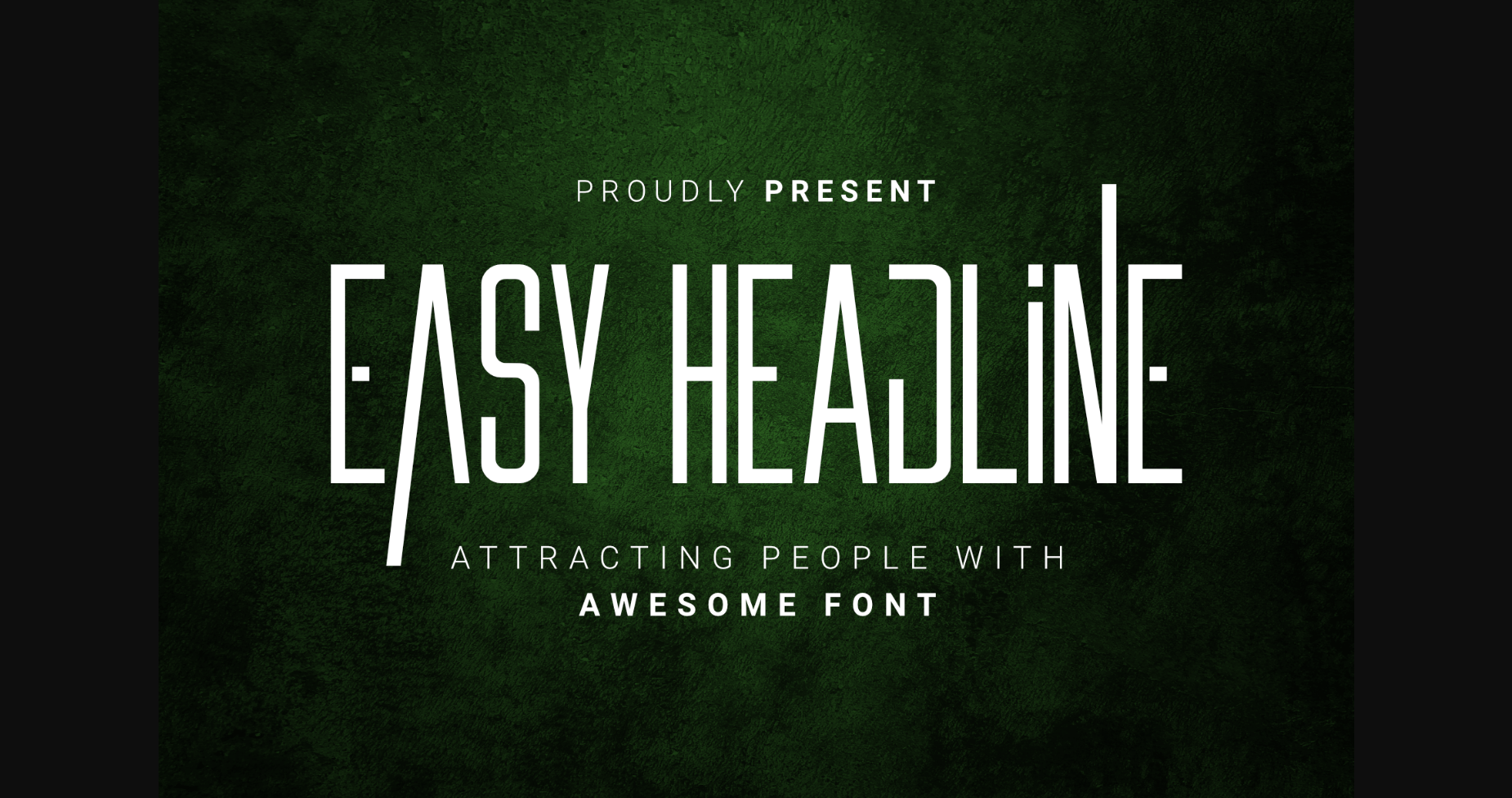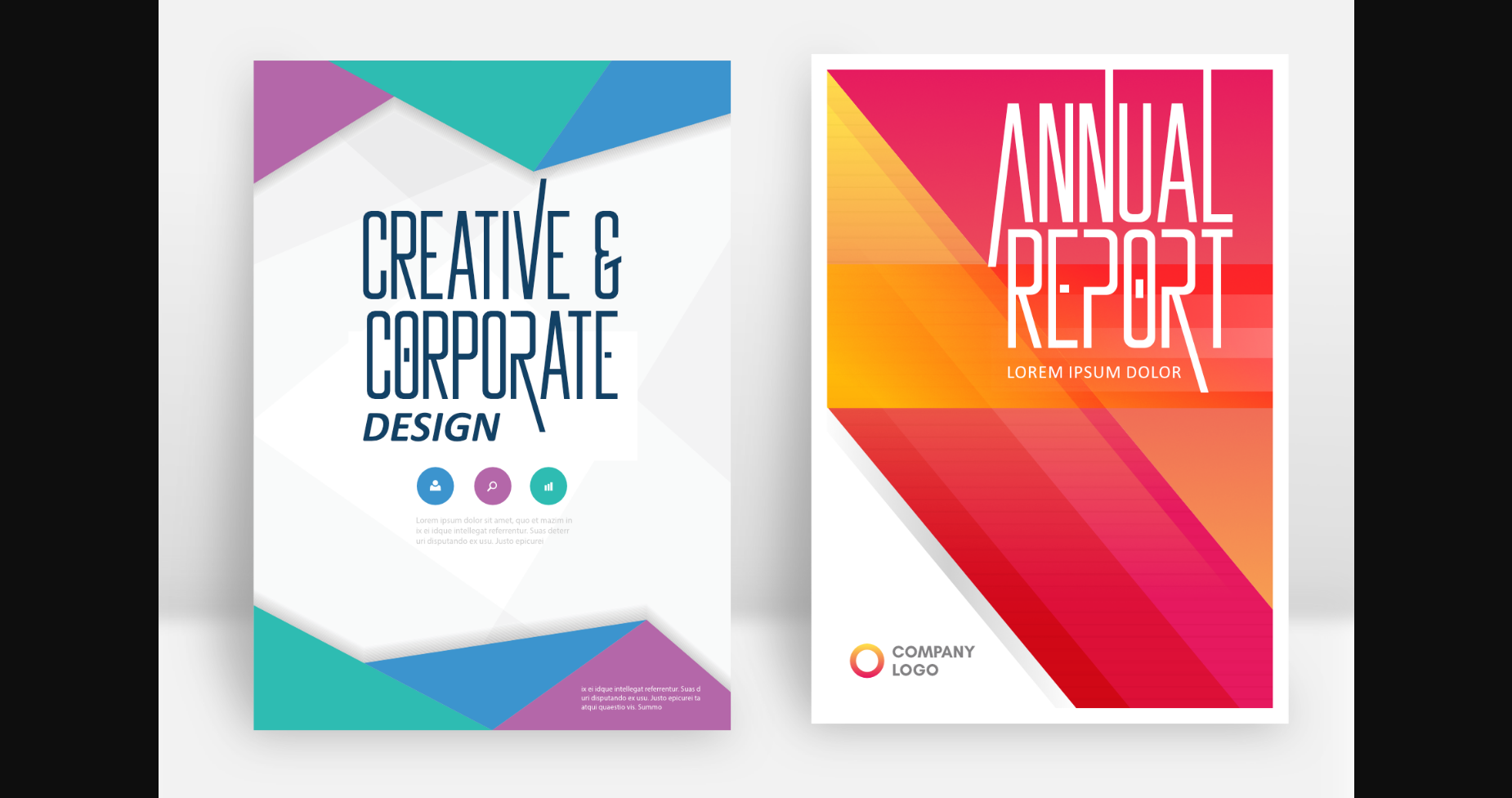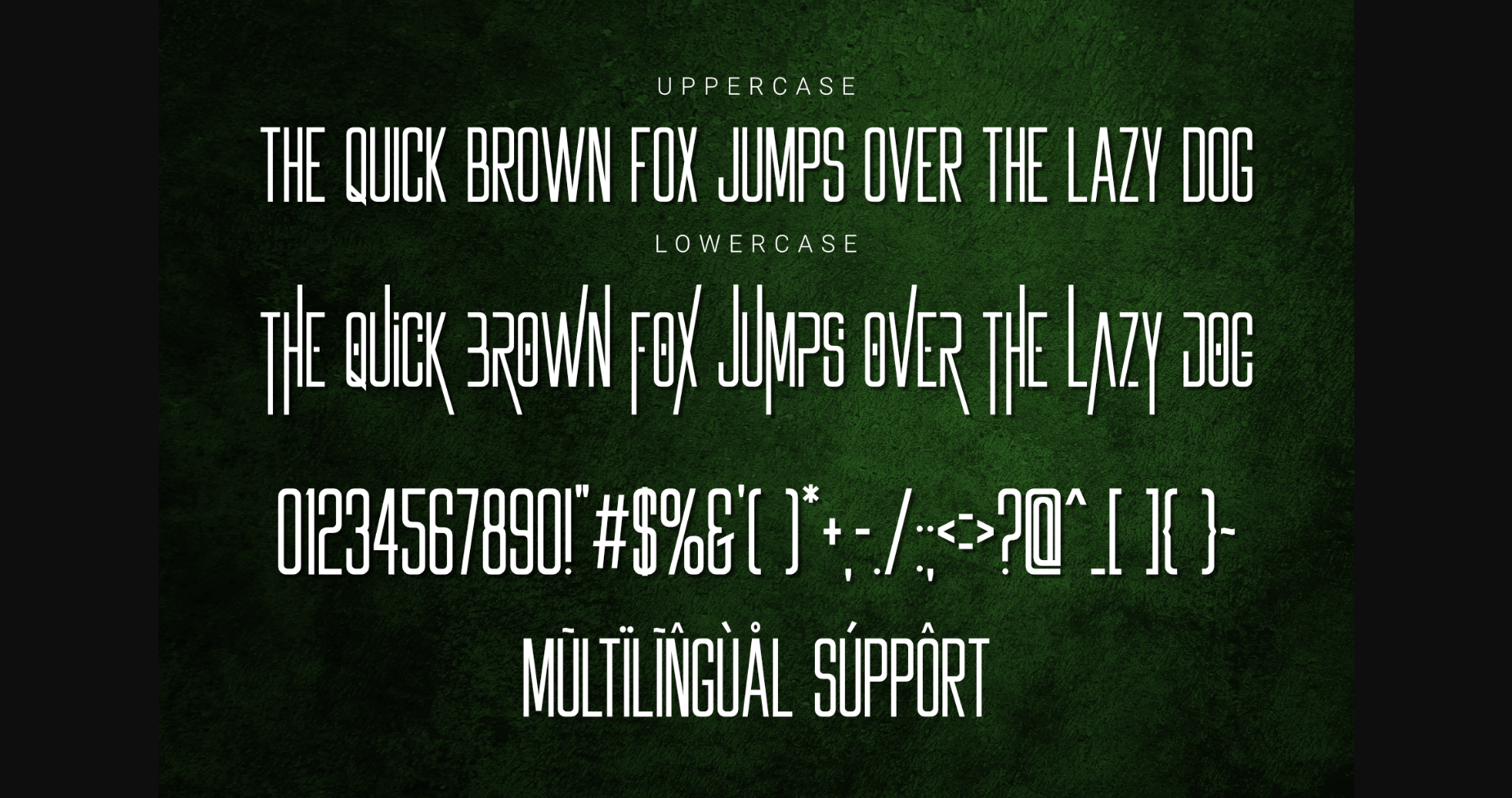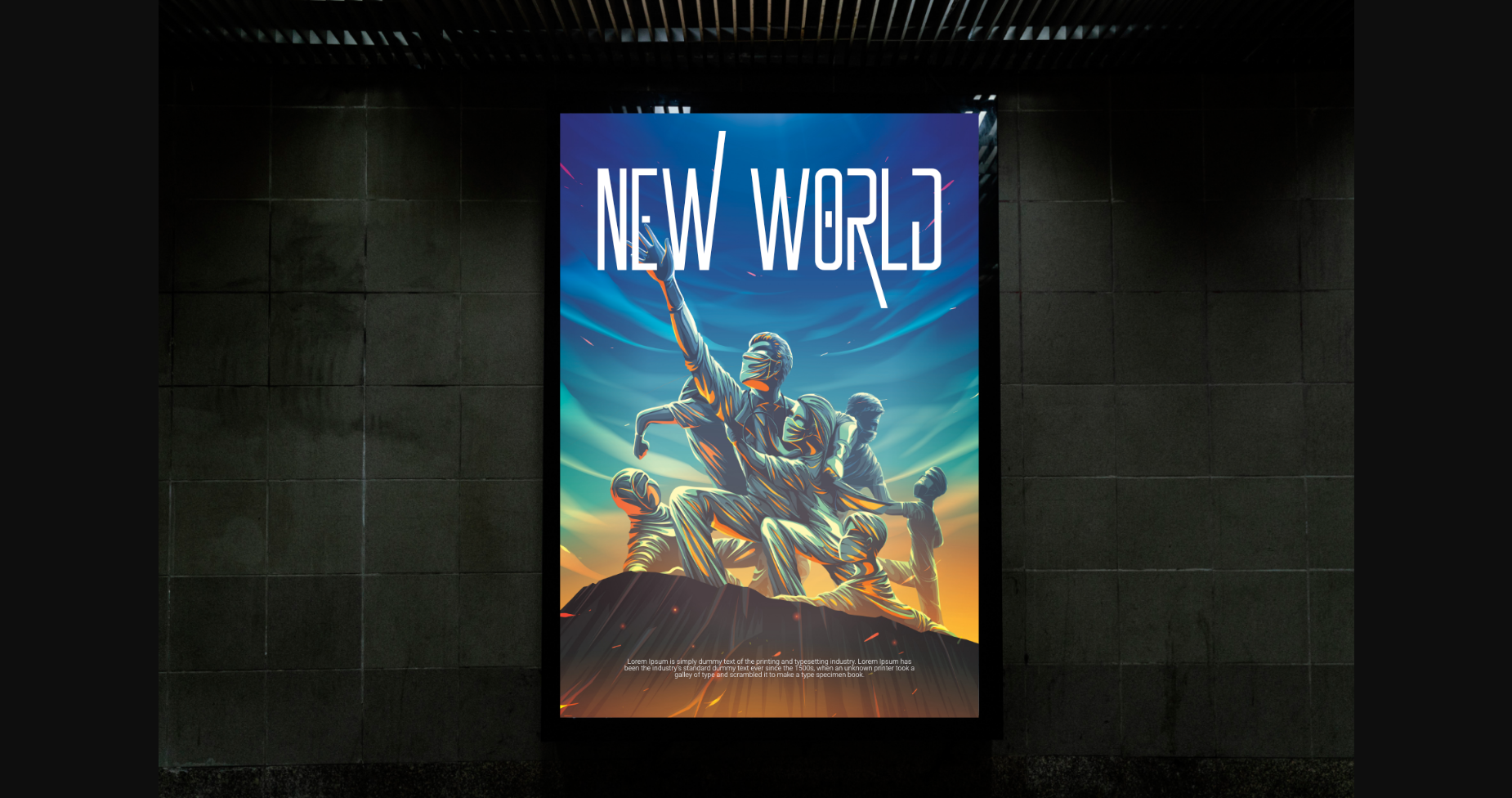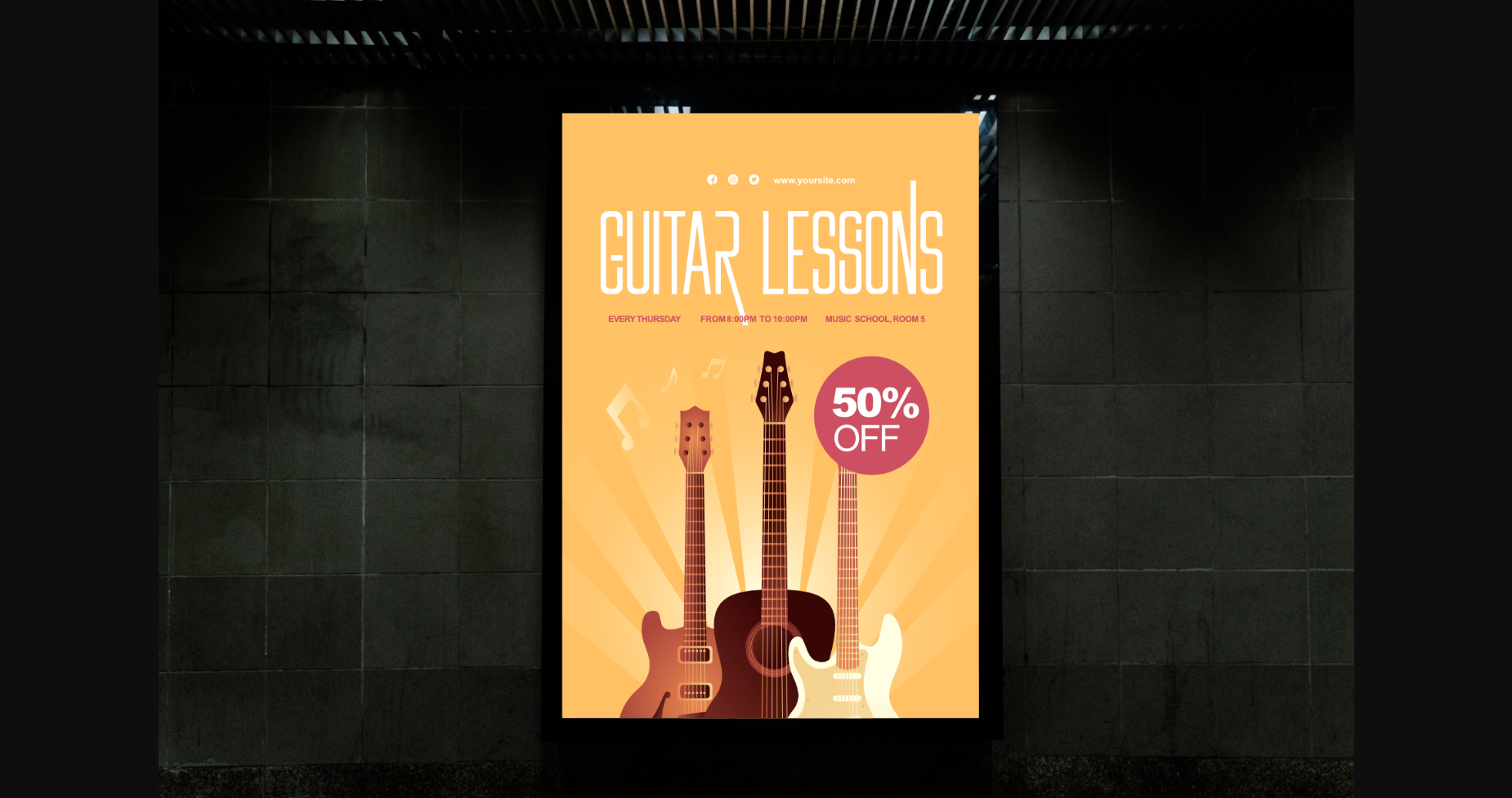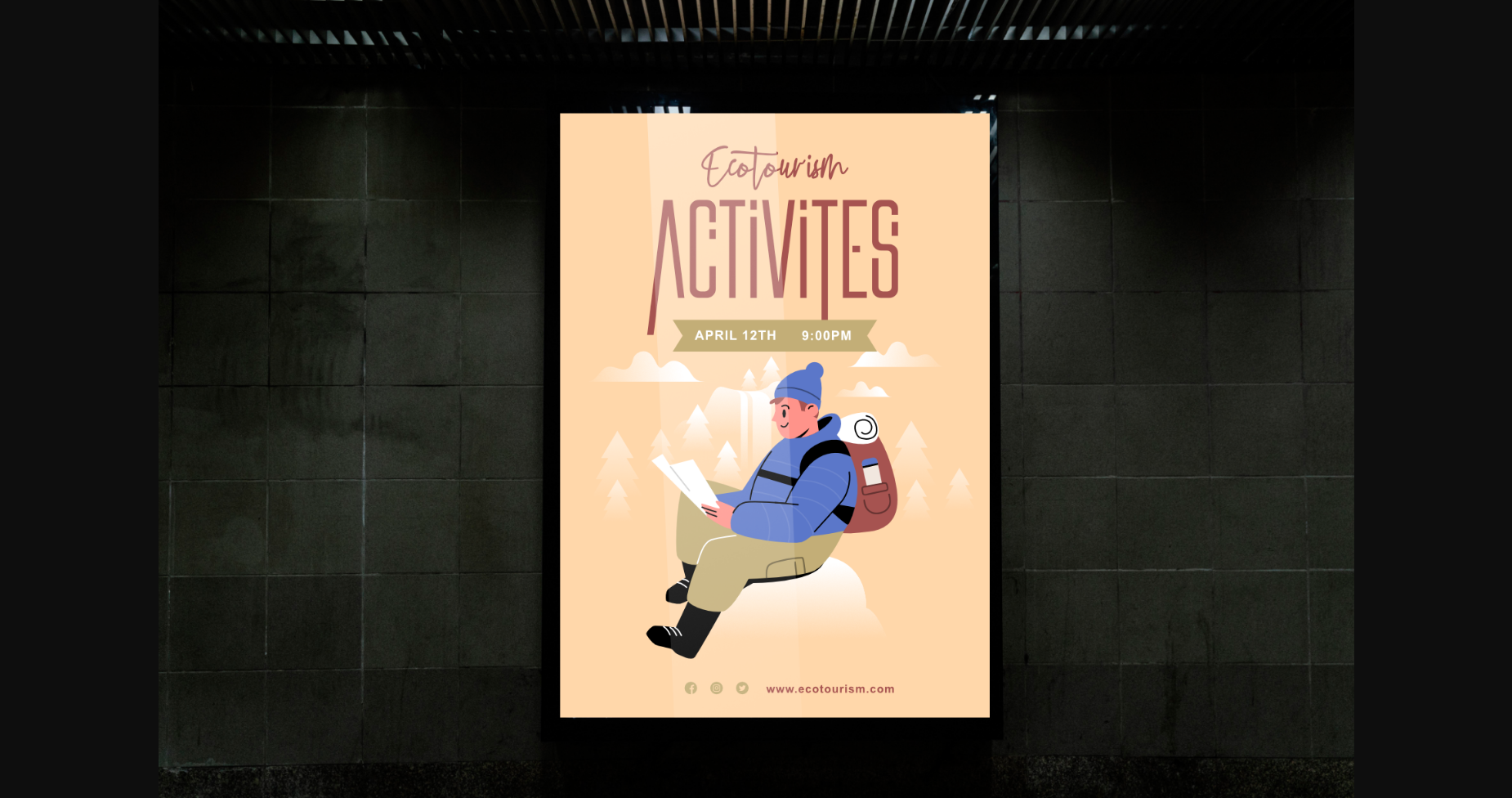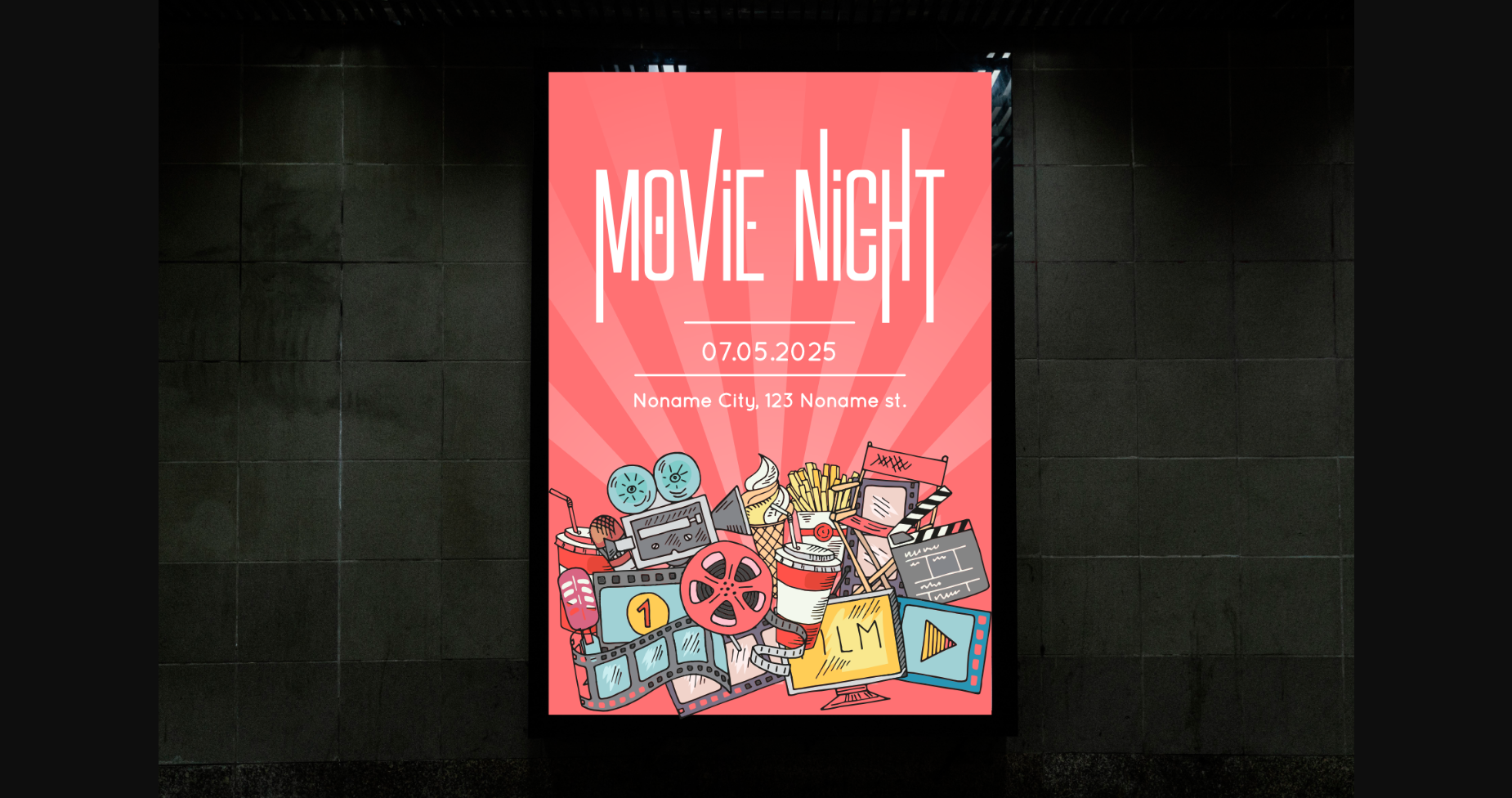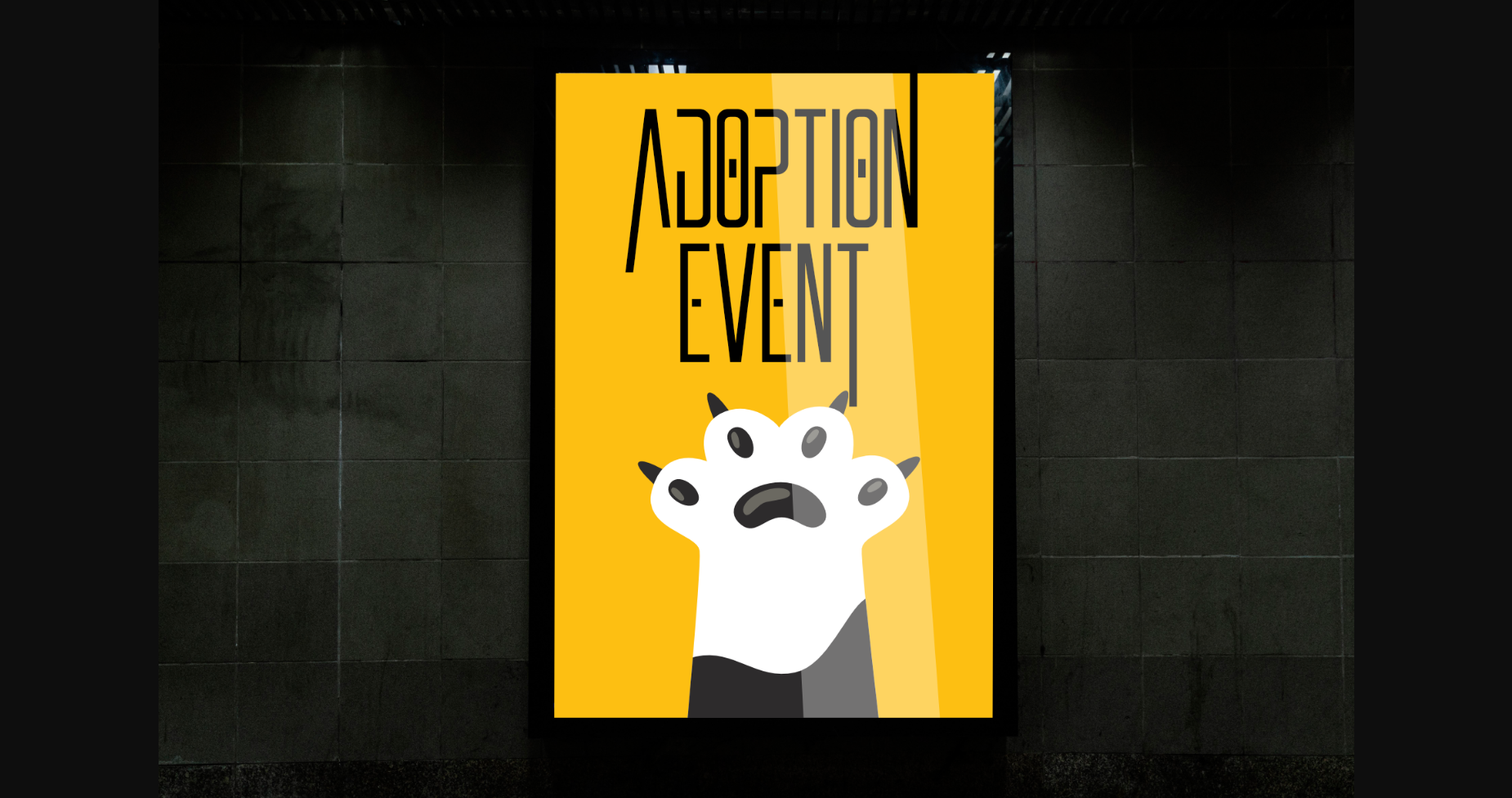
Easy Headline Font
About Easy Headline Font
Are you ready to make your designs rock the world? If so, here comes Easy Headline – a font that’s ready to use for your best projects.
Easy Headline is equipped with characters made with unique and cool shapes. This font is made for any professional branding project, Great for creating titles, Movie titles, Event titles, Social media titles, Book cover titles, Poster titles, branding, posters, etc.
Stay the center of attention with this classy font!